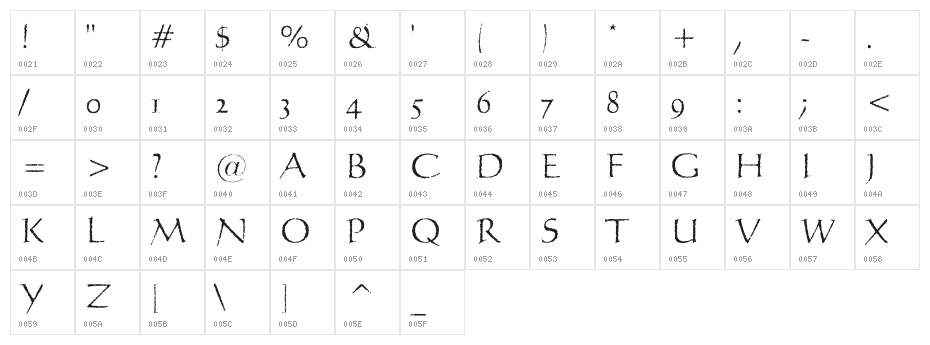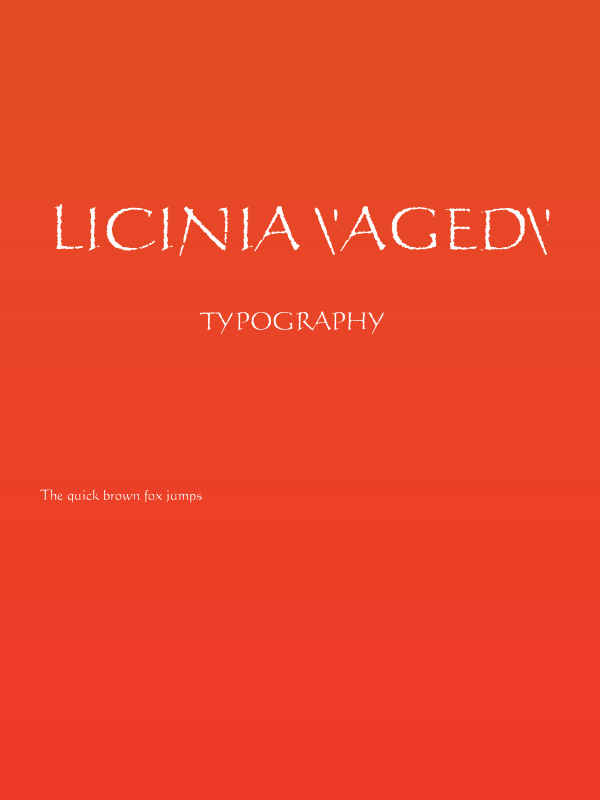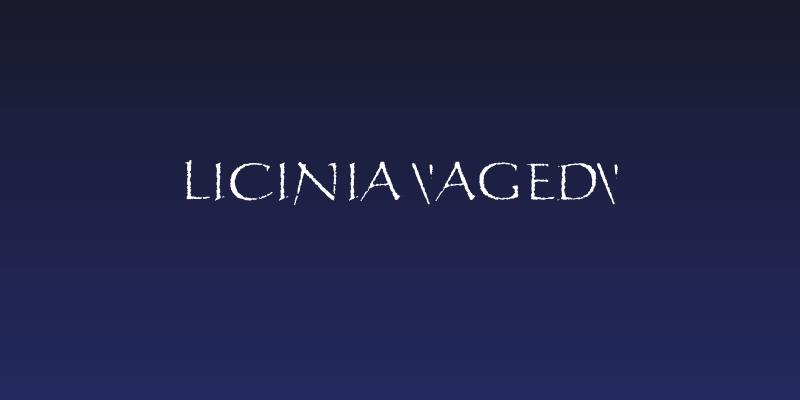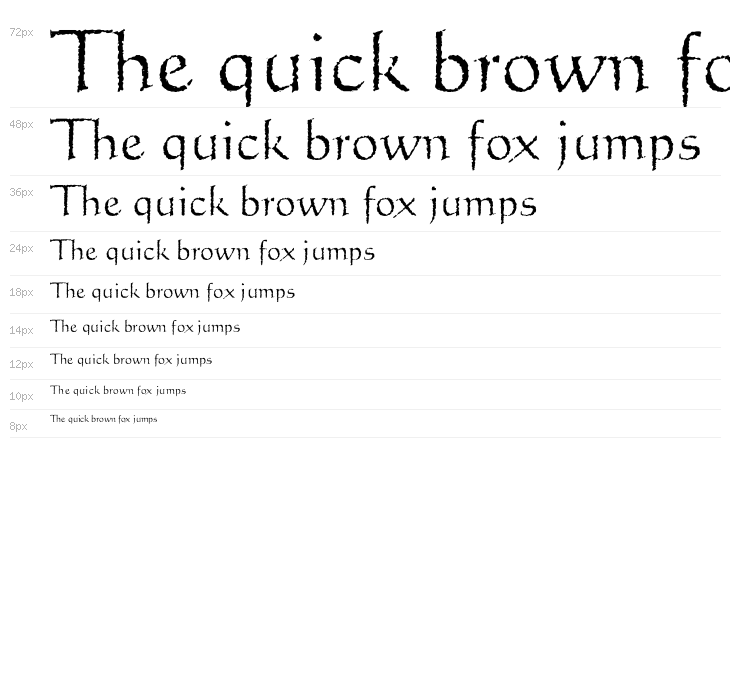
Licinia 'Aged' Font
Licinia 'Aged' Description
This font exudes a classic and aged appearance, reminiscent of ancient scripts. The characters have a slightly distressed look, with uneven edges and a hand-crafted feel. The uppercase letters are tall and elegant, while the lowercase letters maintain a consistent flow with subtle variations in stroke width. The numerals are clear and distinct, matching the overall style of the alphabet. Special characters are well-integrated, maintaining the font's historical aesthetic. This font's unique texture and style make it ideal for projects that require a touch of antiquity or a vintage feel.
| Use Case | Headlines, Logos, Artistic projects |
| Proposed Projects | Ideal for historical documents, vintage-themed designs, book covers, and artistic projects requiring an ancient or classic touch. |